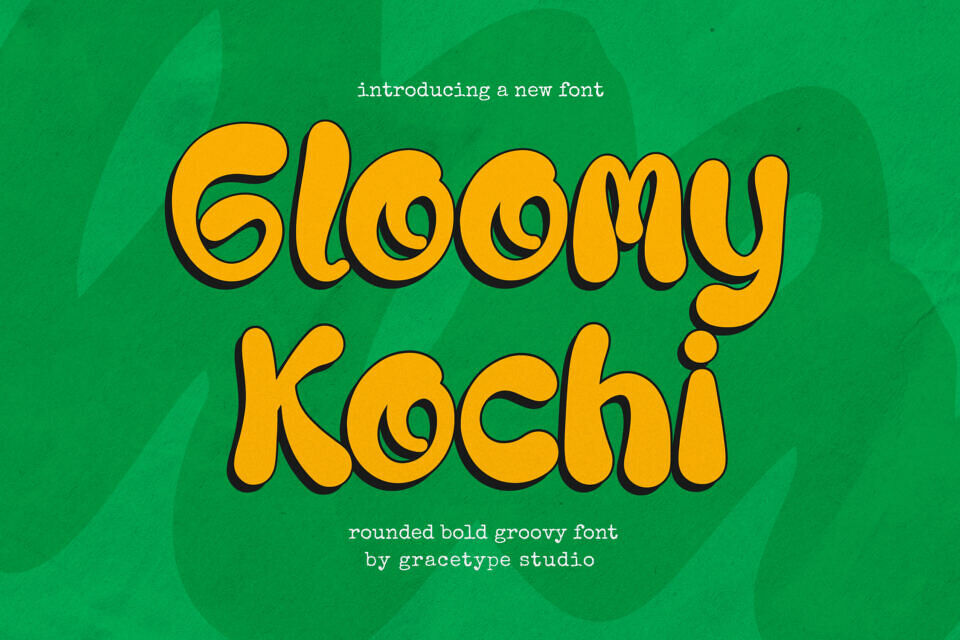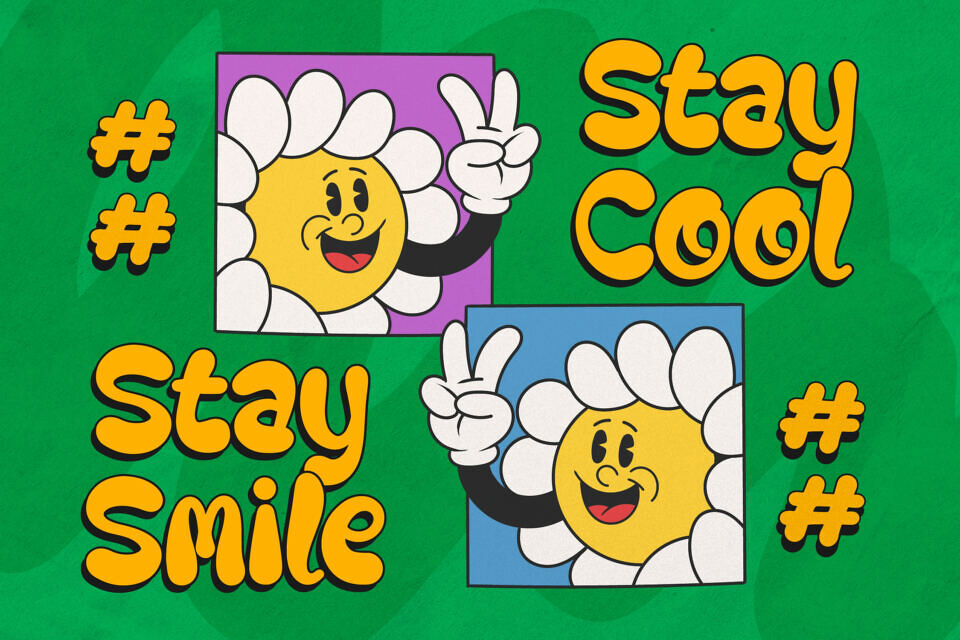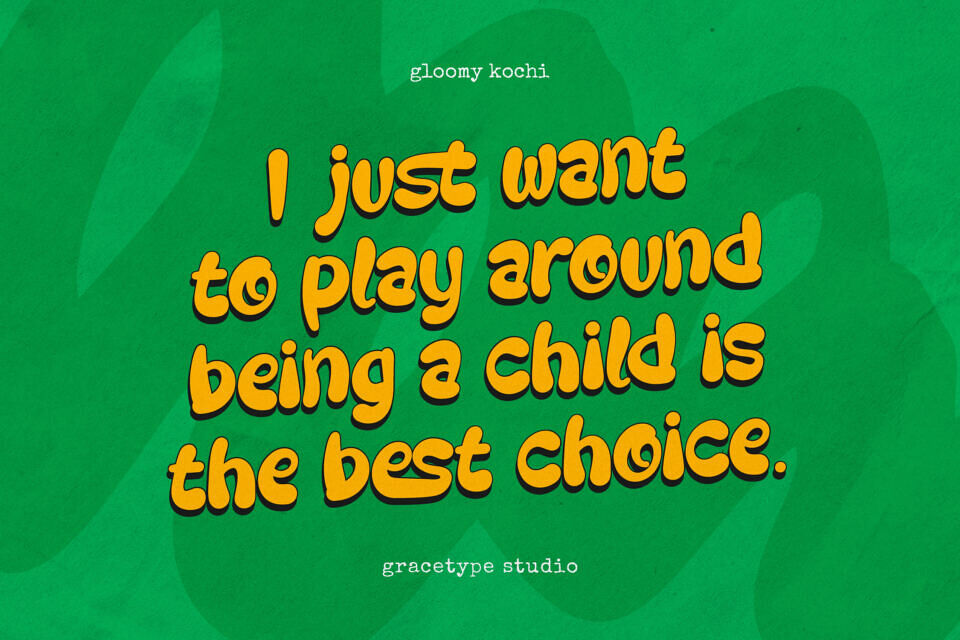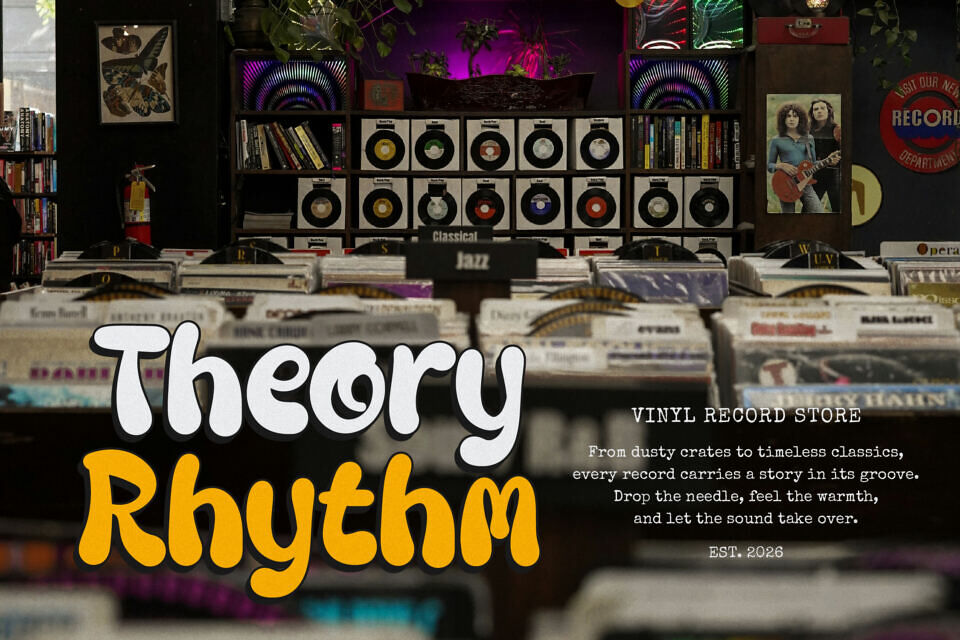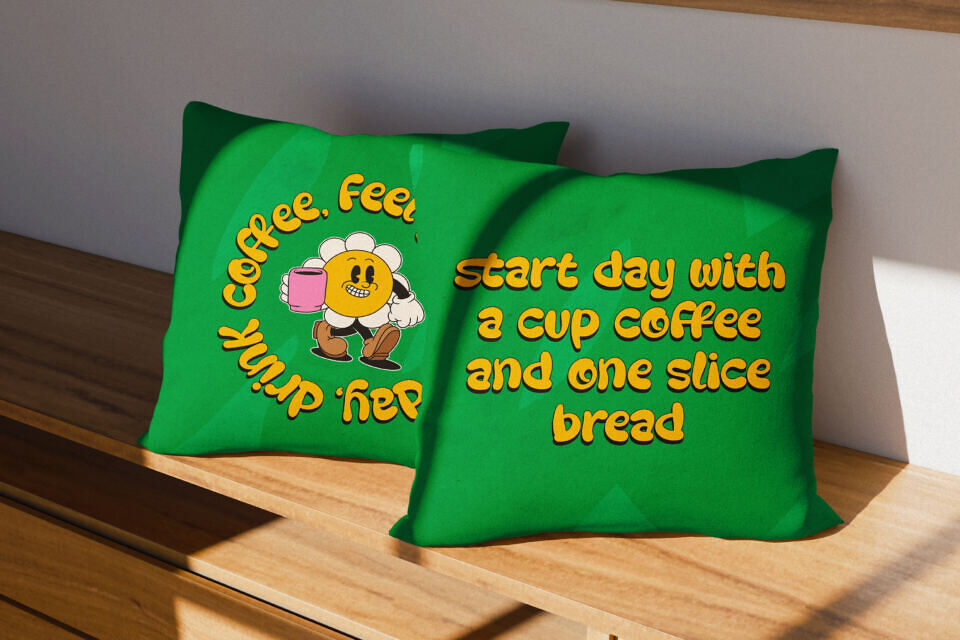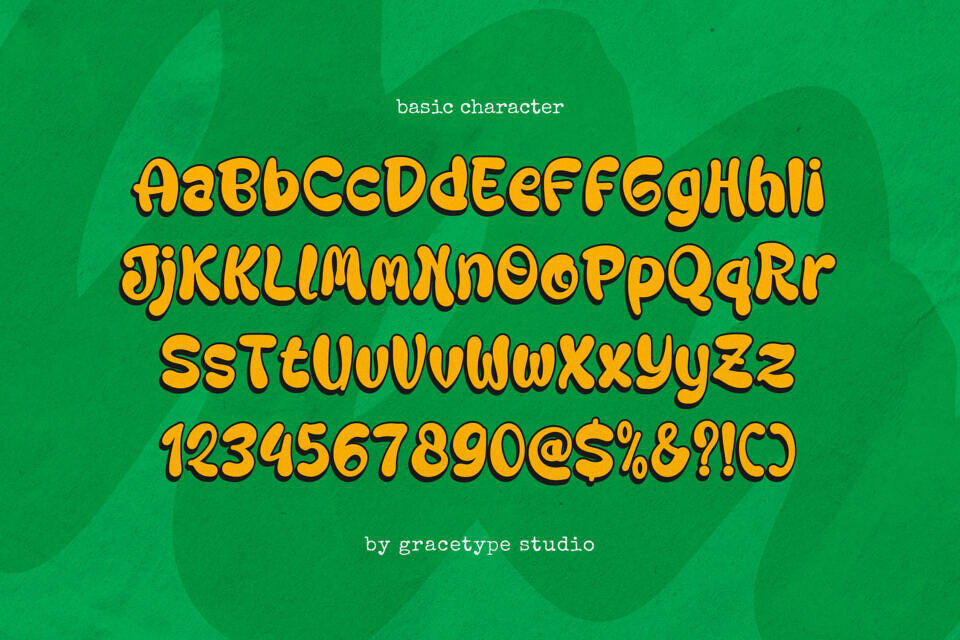
Gloomy Kochi Font
Step back into the psychedelic era with Gloomy Kochi, a soulful display typeface that captures a “retro-and-rebellious” spirit. This font features ultra-thick, rounded letterforms with a rhythmic, liquid-like bounce and expressive terminal curls. Despite its name, the high-contrast “bubble” style radiates a playful energy that is far from gloomy.
With its nostalgic 70s vibe and handcrafted weight, Gloomy Kochi is the premier choice for independent vintage apparel branding, music festival posters, retro-themed cafe signage, and high-impact “funk-and-soul” social media headers.